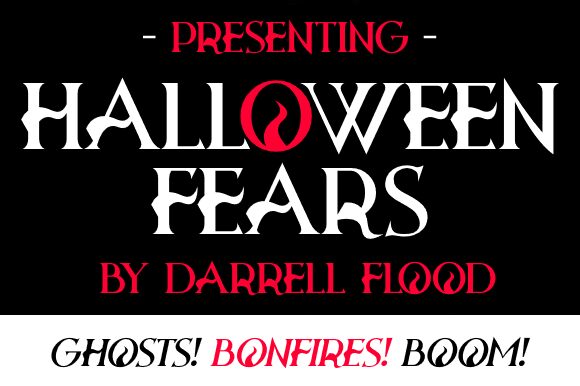
Halloween Fears
Halloween Fears, designed by Hawtpixel, is a semi-light serif font with a spooky twist.
With its all caps design and hauntingly elegant serifs, this font is perfect for creating chilling invitations to haunted house parties or designing eerie posters for horror film festivals. Its delicate weight adds an air of mystery and intrigue to any Halloween-themed project.
Whether you're conjuring up ghostly menus for themed restaurants or crafting wickedly stylish greeting cards, Halloween Fears will bring the spirit of the season to life in a bone-chillingly beautiful way.